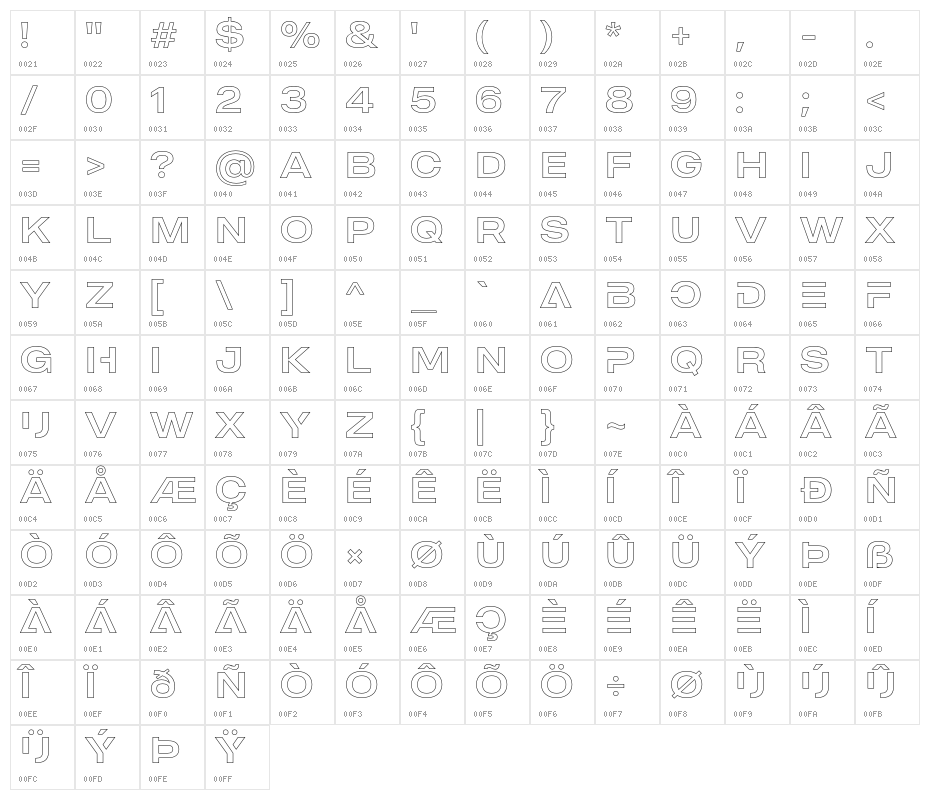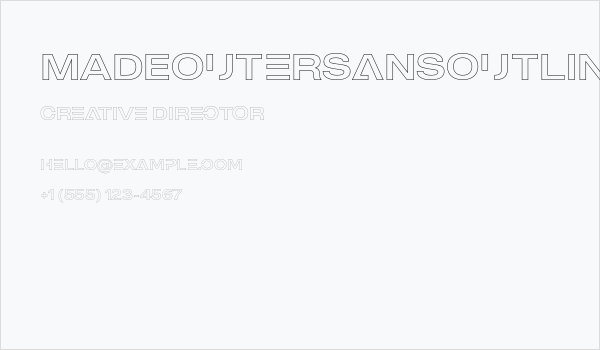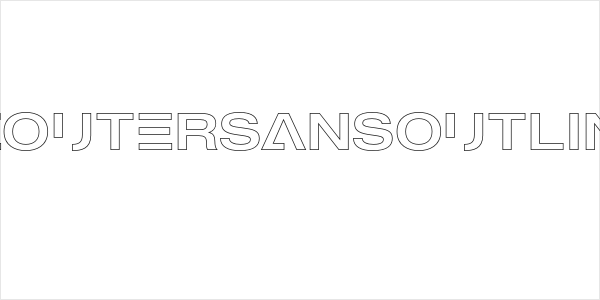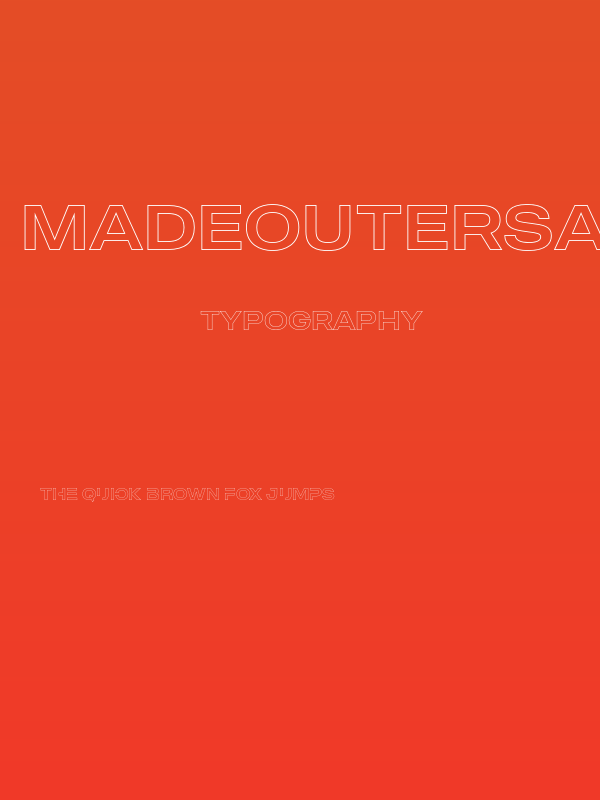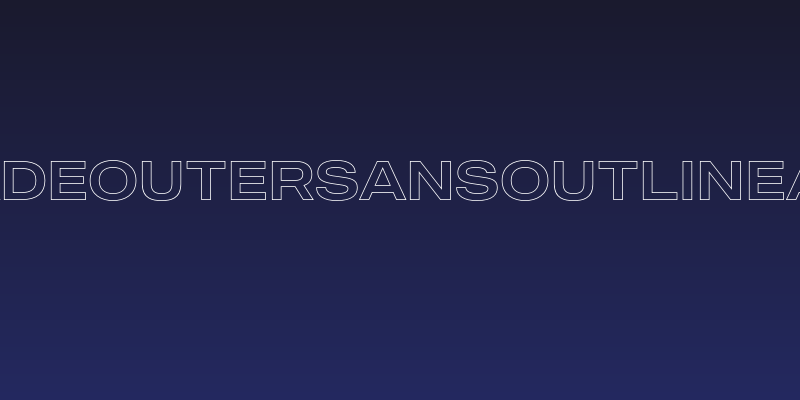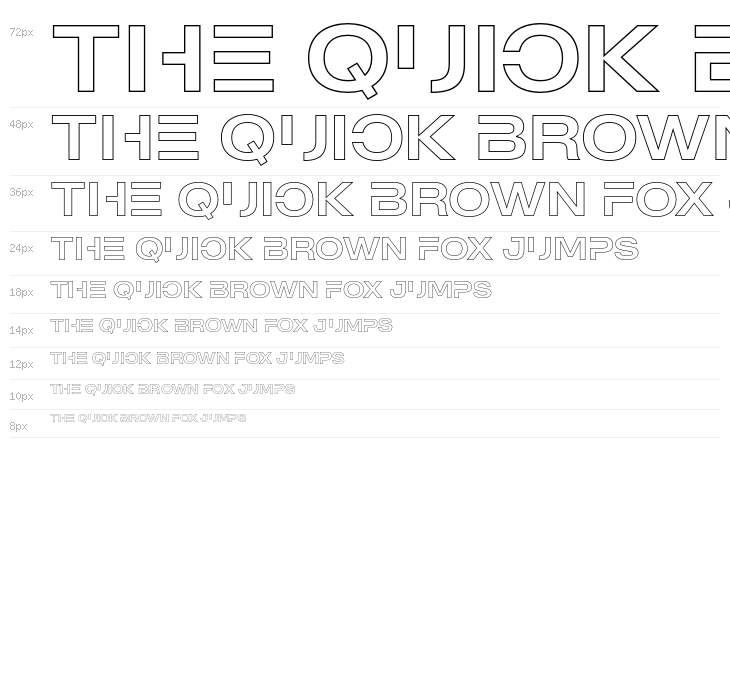
MADEOuterSansOutlineAlt Font
MADEOuterSansOutlineAlt Description
This font features a modern, clean outline style with geometric shapes and uniform stroke widths. The uppercase and lowercase letters maintain a consistent height, creating a harmonious and balanced appearance. The numerals and special characters are designed with the same precision, ensuring readability and aesthetic appeal. The font's open and airy design makes it suitable for a variety of applications, providing a contemporary and stylish look.